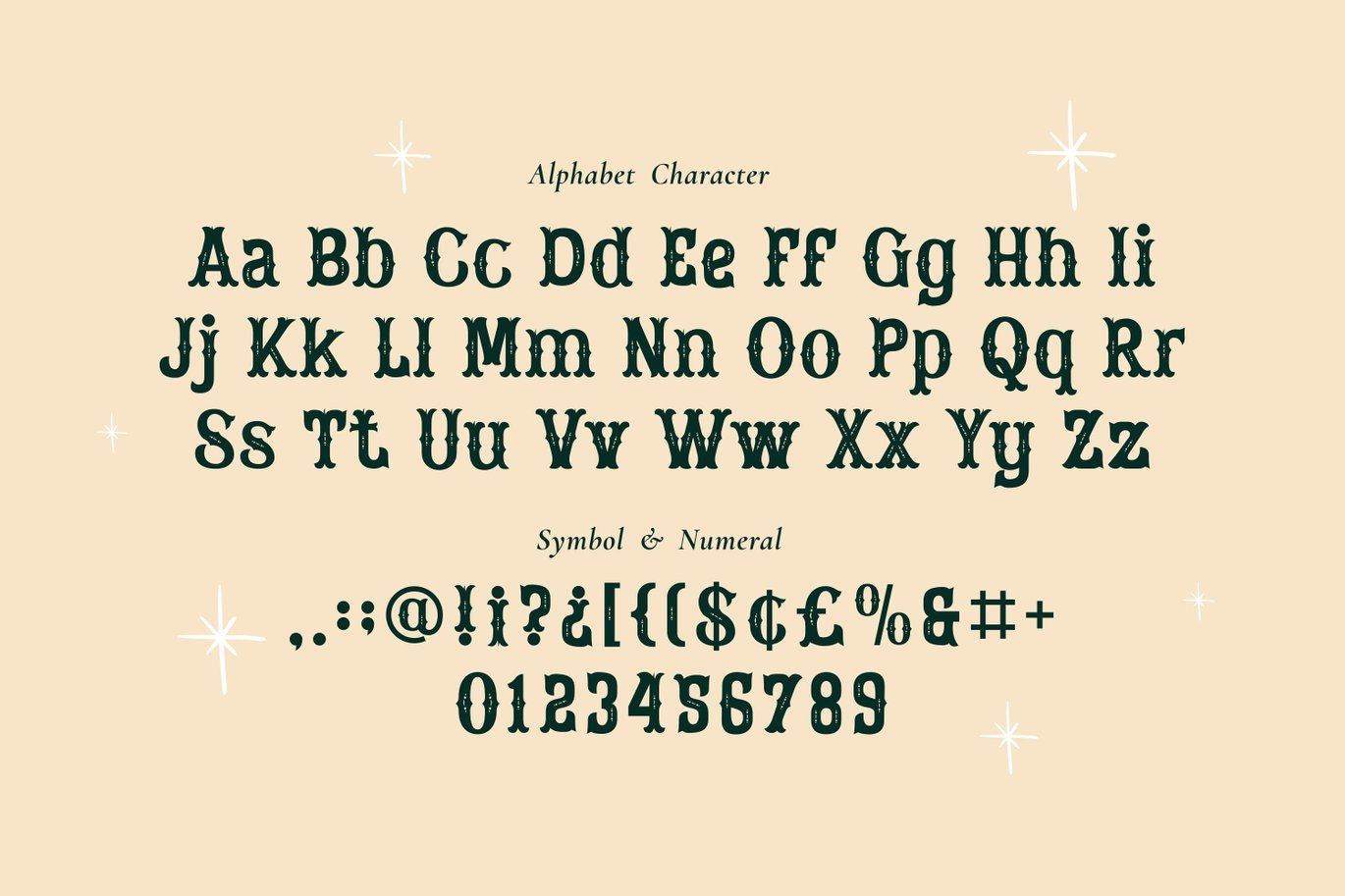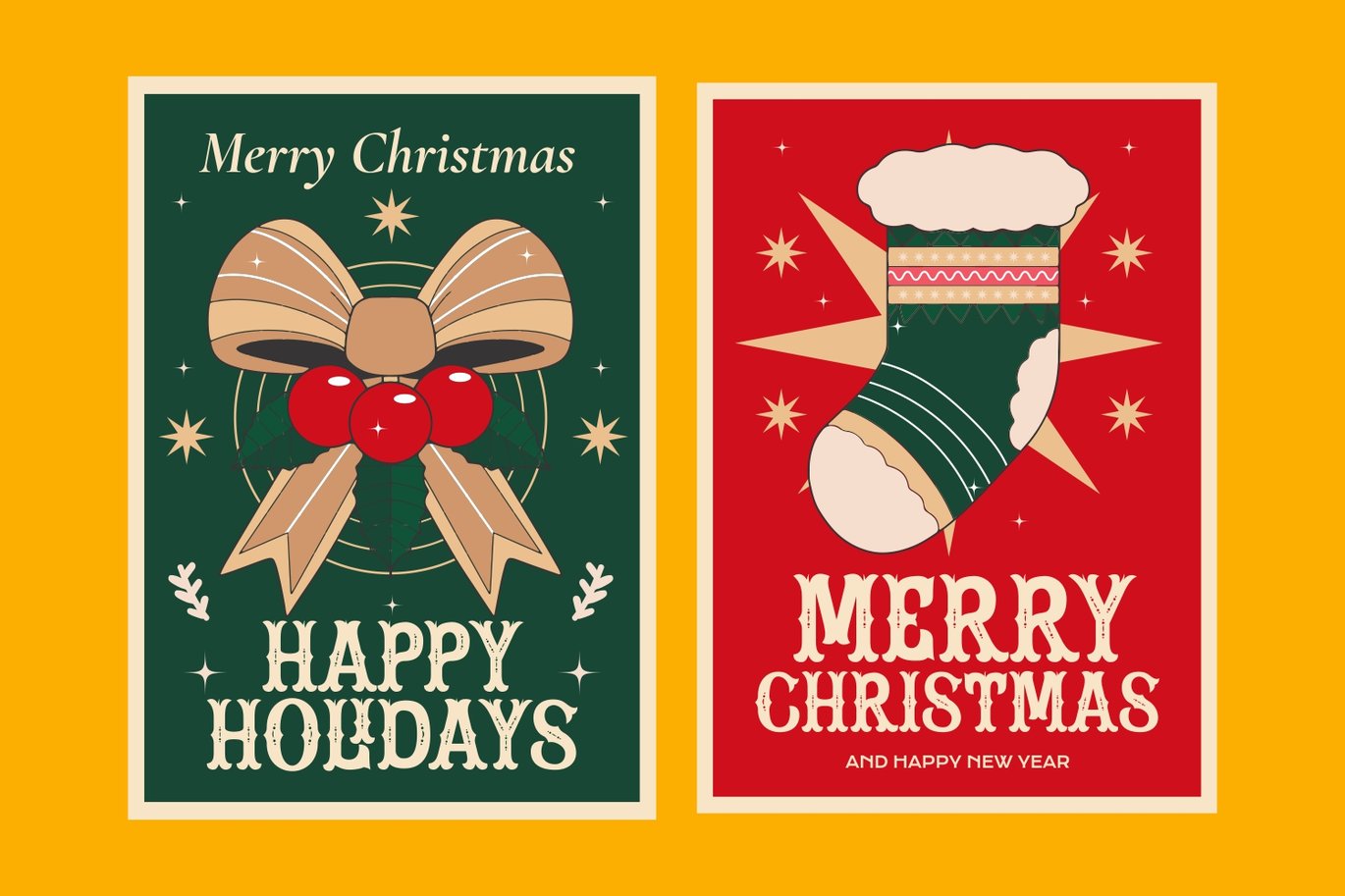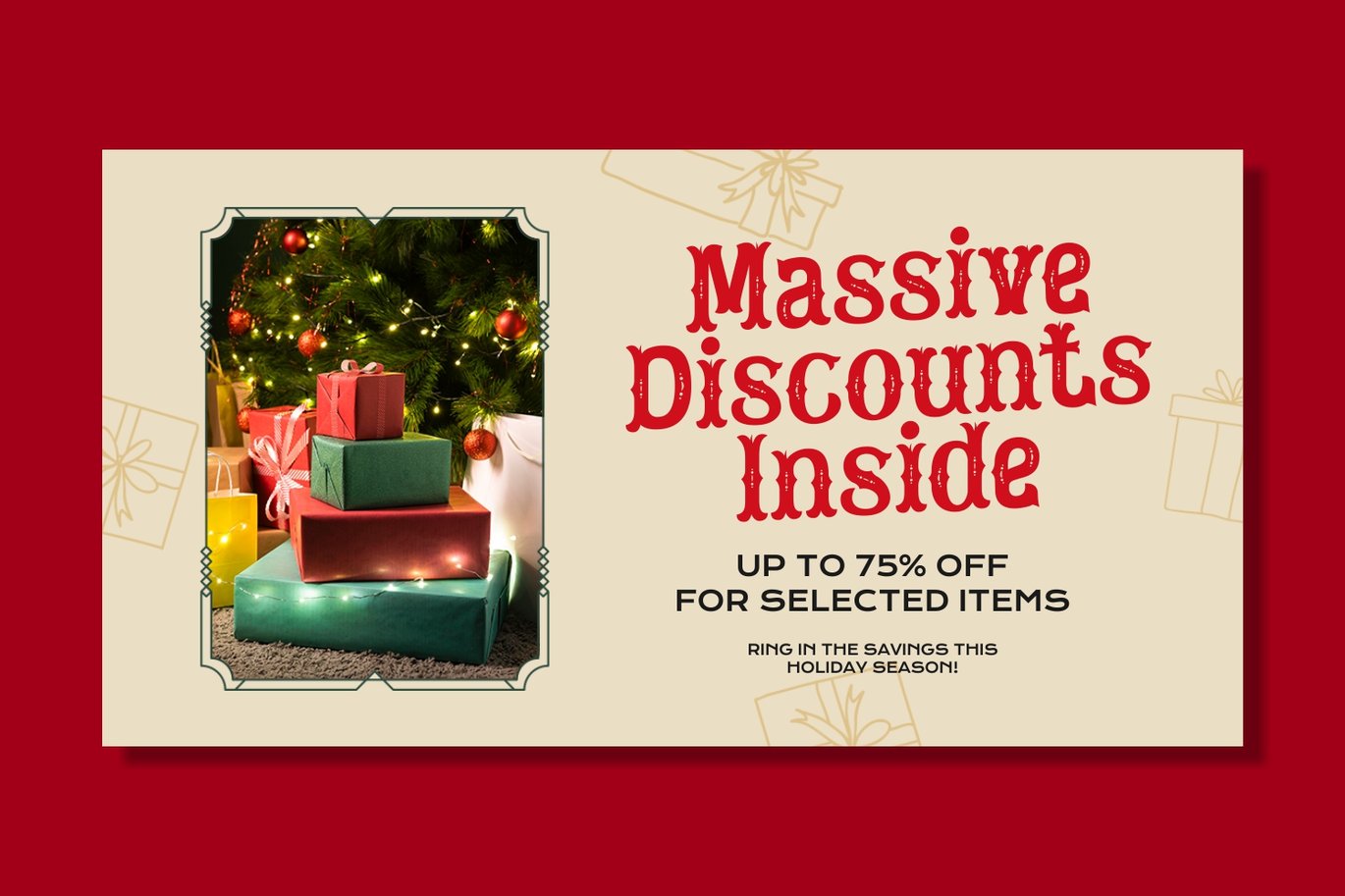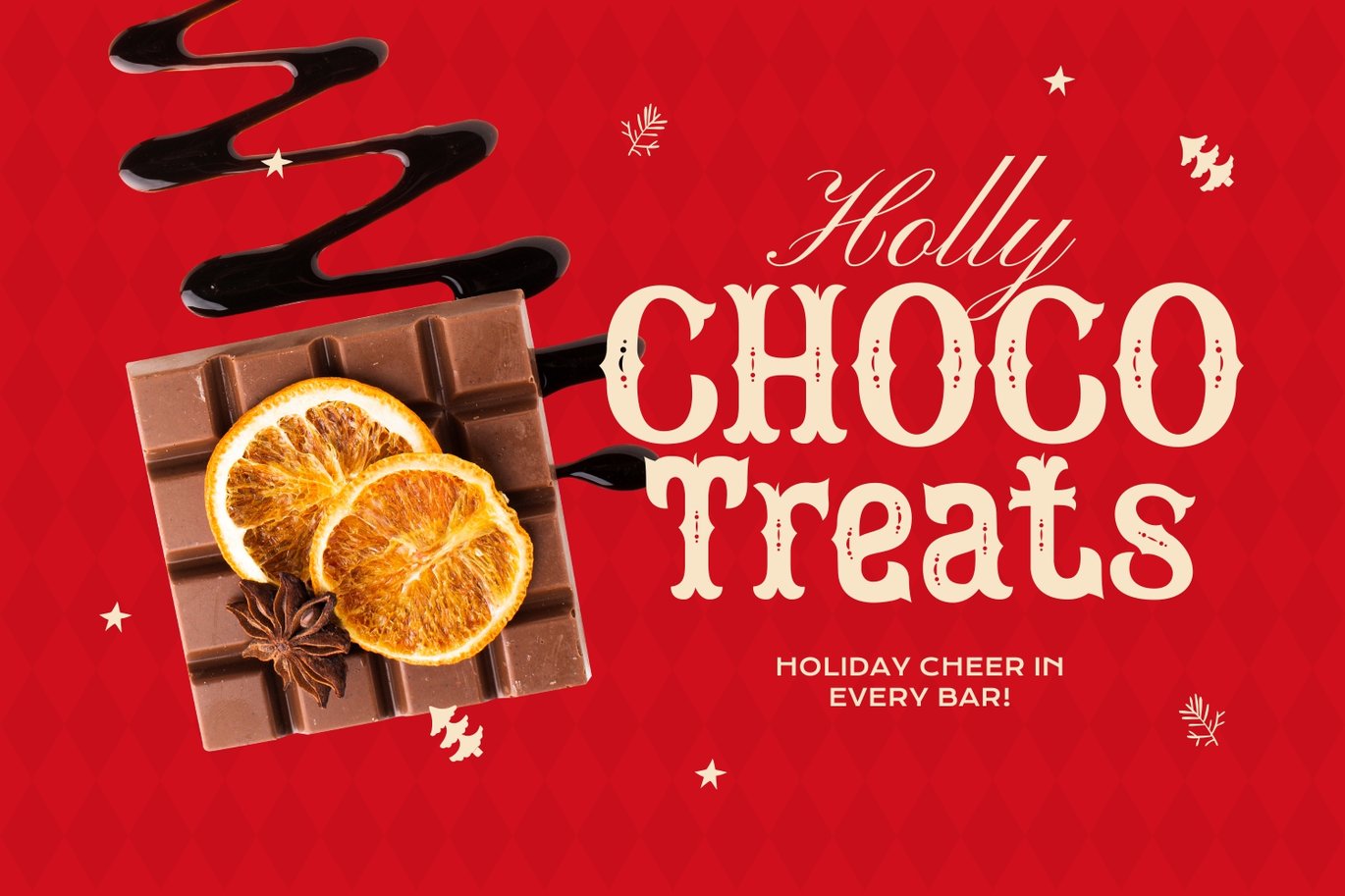
Twinkle Squiggle
Introducing Twinkle Squiggle, a whimsical Christmas display font designed to infuse your holiday creations with charm and elegance. Its intricate and playful letterforms are perfect for festive projects such as greeting cards, gift tags, seasonal advertisements, or social media posts. With its bold style and intricate detailing, this font evokes a sense of nostalgia and joy, reminiscent of classic Christmas celebrations.
Created to celebrate the magic of the season, Twinkle Squiggle is not only visually captivating but also versatile. Its unique design makes it ideal for both casual and formal holiday designs, from cozy family invitations to sophisticated holiday branding. Bring the spirit of Christmas to life with this enchanting font and make your designs stand out this festive season.